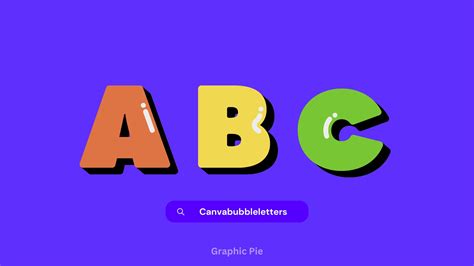
Canva Fonts: Find And Use Them Easily
Hey guys! Ever found yourself scrolling endlessly through Canva, trying to find that perfect font to make your design pop? Yeah, me too! It can be a real mission sometimes, right? But don’t sweat it, because today we’re diving deep into the world of Canva fonts . We’ll cover everything from finding those hidden gems to understanding the different types of fonts available and how to use them like a pro. So, buckle up, and let’s make your designs stunning !
Understanding Canva’s Font Library
First off, let’s talk about what Canva actually offers in terms of fonts. You guys probably know Canva has a massive library, and that includes a ton of fonts. We’re talking thousands, seriously! They’ve got everything from super sleek and modern sans-serifs to fancy, decorative script fonts that look like they were hand-drawn. You’ll find classic serifs that scream professionalism and quirky, fun fonts perfect for those playful projects. The cool thing is that Canva keeps adding new fonts too, so your options are always fresh. Now, a big chunk of these fonts are available for free, which is awesome for us budget-conscious creators. But, you’ll also notice some fonts have a little crown icon next to them. These are part of Canva Pro . If you’re a Pro user, you get access to all of them, which is a huge bonus for taking your designs to the next level. But honestly, even the free collection is more than enough to get started and create some seriously impressive stuff. The key is knowing how to navigate this vast collection and pick the right one for your vibe.
How to Find Fonts in Canva
Alright, so you’re in the Canva editor, and you need a font. Where do you start? It’s actually super simple, guys! When you add a text box to your design, you’ll see a toolbar pop up at the top. Right there, smack dab in the middle, is the font dropdown menu. Click on that, and boom , you’re in the font library. Now, if you already know the name of the font you want, there’s a search bar at the very top of the font menu. Just type it in, and Canva will find it for you. Easy peasy!
But what if you don’t know what you’re looking for? This is where the fun begins! Canva has a few cool ways to help you discover new fonts. You can browse by category. See those little icons or dropdowns? They let you filter by style – think ‘Serif,’ ‘Sans Serif,’ ‘Script,’ ‘Display,’ ‘Handwritten,’ and more. This is great when you have a general idea, like ‘I need something elegant’ or ‘I want something playful.’
Another awesome feature is the ‘ Font Combinations ’ suggestion. Canva often suggests pairings that work well together. This is a lifesaver, honestly. You pick one font, and Canva shows you other fonts that complement it. It takes the guesswork out of pairing, and you end up with professional-looking text hierarchies. You can also explore fonts by mood or purpose. Sometimes, you’ll see curated collections or recommendations based on your current design, which is super helpful.
Don’t forget to check out the ‘ Recently Used ’ and ‘ Saved Fonts ’ sections too. Once you find a font you love, make sure to click the star icon next to it. This adds it to your ‘ Saved Fonts ,’ so you can easily access it again without having to search. This is a game-changer for branding and consistency across your projects, guys. Keep your favorites handy and speed up your workflow!
Ultimately, the choice between free and Pro fonts depends on your needs and budget. If you’re just starting out or working on casual projects, the free font library is more than sufficient. But if you need that extra creative edge, want access to a wider selection of unique typefaces, or are building a strong brand identity, Canva Pro fonts are a worthwhile investment. Remember, consistency is key in branding, and having a curated selection of fonts you love readily available can make a big difference.
Tips for Choosing the Right Font
Choosing the right font guys, is so crucial for your design’s success. It’s like picking the right outfit for an occasion – it sets the tone and conveys a message before anyone even reads the words. So, let’s break down some killer tips to help you pick the perfect font from Canva’s massive library.
First things first: Consider your audience and the message . Who are you trying to reach? What feeling do you want to evoke? A playful, bubbly font is great for a kids’ party invitation, but it’s probably a terrible choice for a formal business proposal. A bold, strong font might work for a gym advertisement, but it could look out of place on a wedding invitation. Think about the personality of your brand or project. Is it modern, traditional, quirky, elegant, serious, or fun? Your font choice should align perfectly with this personality. For example, sans-serif fonts (like Arial or Montserrat) often feel modern, clean, and approachable. Serif fonts (like Times New Roman or Georgia) tend to be more traditional, formal, and trustworthy. Script fonts can be elegant and personal, while display fonts are best used for headlines and grabbing attention due to their unique, often decorative nature.
Second, readability is king ! No matter how beautiful a font looks, if people can’t read it easily, it’s failed its primary job. This is especially important for body text, which needs to be legible at various sizes, on different screens, and even in print. Test your chosen font in the actual size you’ll be using it. Can you read it comfortably? Are the letters distinct, or do they blur together? Avoid fonts that are too condensed, too wide, or have very thin strokes for large blocks of text. For headlines, you have more freedom to play with decorative or bolder fonts, but remember they still need to be clear and impactful.
Third, don’t overdo it with font pairings . While using multiple fonts can add visual interest, using too many can make your design look cluttered and unprofessional. A good rule of thumb is to stick to two, maybe three, fonts at most. Typically, you’ll want a font for your headings and another for your body text. You can use a third font for accents or calls to action if needed. Canva’s font combination suggestions are a fantastic starting point here. Look for pairings where the fonts complement each other in style and weight without clashing. For instance, pairing a bold sans-serif headline with a more readable serif body text can create a beautiful contrast and hierarchy.
Fourth, consider the medium . Where will your design be displayed? Fonts that look great on a large digital screen might not render well on a small mobile device or in a printed brochure. Web-safe fonts generally perform well across platforms, but always preview your design on the intended medium if possible. High-resolution prints can handle more intricate details, while lower-resolution digital displays might benefit from simpler, bolder fonts.
Finally, trust your gut and experiment ! Canva makes it incredibly easy to try different fonts. Don’t be afraid to swap things around. Play with different weights (bold, regular, light) and styles (italic) of the same font family. See what feels right. Sometimes the font that looks best on paper isn’t the one that truly captures the essence of your project. Get feedback from others if you can. Ultimately, the goal is to create a design that is not only visually appealing but also effectively communicates your message, and the right font is a massive part of that puzzle, guys!
Using Your Brand Fonts in Canva
This is a huge one, especially for my fellow business owners and brand builders out there, guys! Consistency is absolutely key when it comes to branding. If your brand has specific fonts – maybe your logo uses a certain typeface, or you’ve established a go-to font for your marketing materials – you’ll want to use those same fonts consistently across all your designs. This helps people recognize your brand instantly and builds trust and professionalism. The good news? Canva makes it super easy to upload and use your own brand fonts .
If you’re a Canva Pro user, you get access to the Brand Kit feature. This is an absolute game-changer! Within your Brand Kit, you can upload your own fonts. Just navigate to your Brand Kit in your Canva dashboard, find the ‘Fonts’ section, and hit ‘Upload a font.’ You’ll need to have the font files (usually .otf, .ttf, or .woff formats) ready on your computer. Once uploaded, these fonts become available directly within the Canva editor, categorized under ‘Uploaded Fonts’ in your font menu. This means you can easily select your brand’s official fonts for any design project without having to re-upload them each time. It saves so much time and ensures your brand identity stays sharp and consistent across all your marketing collateral, social media posts, presentations, and whatever else you’re creating.
Even if you’re not a Pro user, you can still upload fonts, though it’s a slightly more manual process and typically tied to individual designs or templates rather than a global brand kit. However, the best and most streamlined way to manage your brand fonts within Canva is definitely through the Brand Kit feature with a Pro subscription. It keeps everything organized, accessible, and ensures that every design bearing your brand name looks exactly as it should. So, if brand consistency is important to you, seriously consider leveling up to Canva Pro just for this feature alone, along with all the other amazing benefits!
Conclusion: Mastering Canva Typography
So there you have it, folks! We’ve journeyed through the vast and wonderful universe of Canva fonts . We’ve explored how to navigate that massive font library, discovered tips for picking the perfect typeface for any project, and even touched upon the difference between free and Pro options. Plus, we covered the super-important step of uploading your own brand fonts to keep things consistent and professional.
Remember, typography is more than just picking pretty letters; it’s about communication. The right font can evoke emotion, convey authority, spark joy, or simply make your message clear and easy to digest. Canva gives you the tools to play with thousands of options, so don’t be afraid to experiment! Use the search filters, check out the font pairings, and most importantly, always consider your audience and the overall message you want to send.
Whether you’re a casual user whipping up a birthday card or a business owner creating professional marketing materials, mastering Canva fonts will undoubtedly elevate your designs. Keep practicing, keep exploring, and happy designing, guys! You’ve got this!